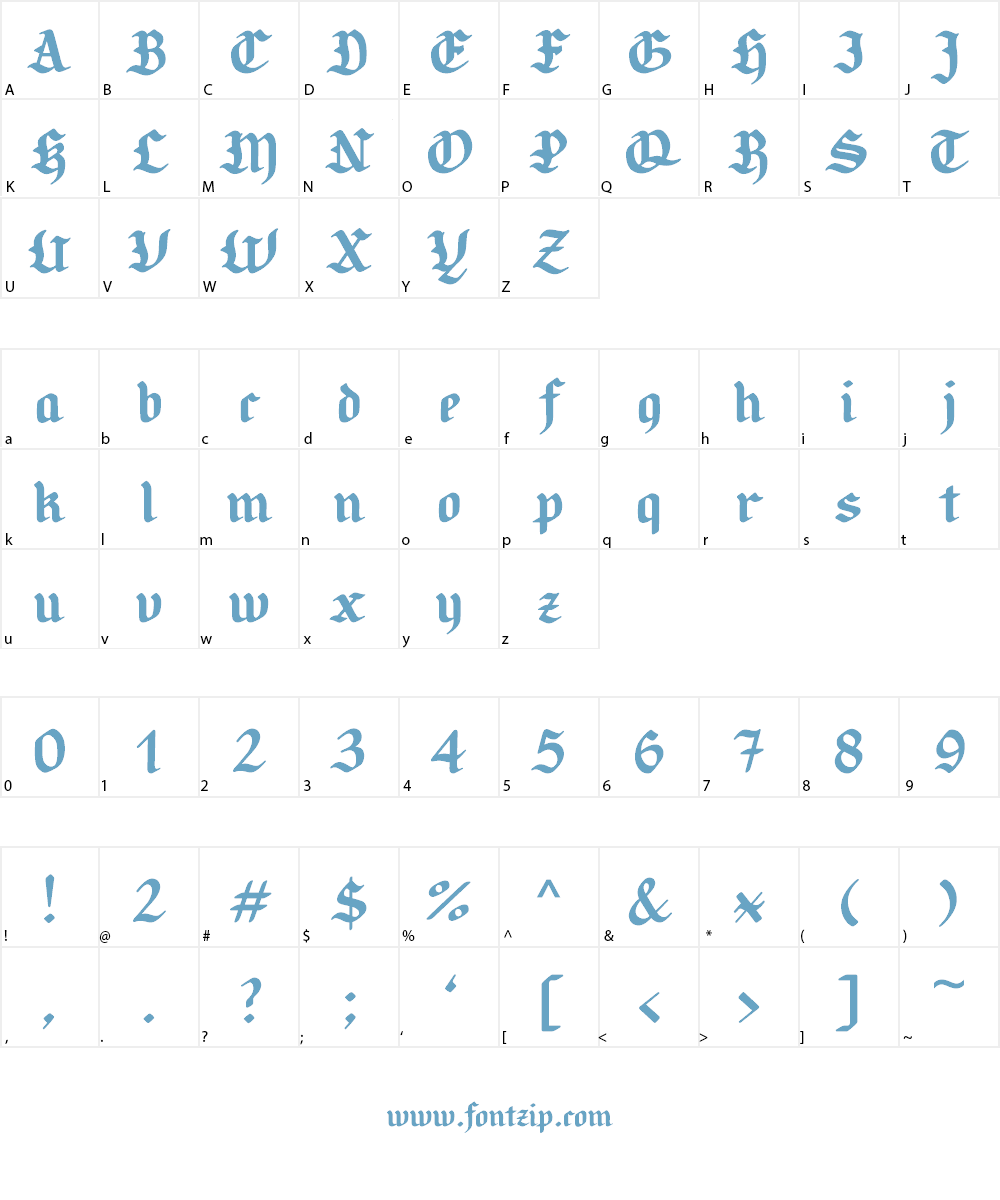
"Candlebright" is a gothic calligraphy font, with 345 glyphs, including:
-A-Z, a-z, 0-9, accents, punctuation and symbols
-Stylistic alternates
-Swashes
-Ligatures
& an extra set of matching ornaments.